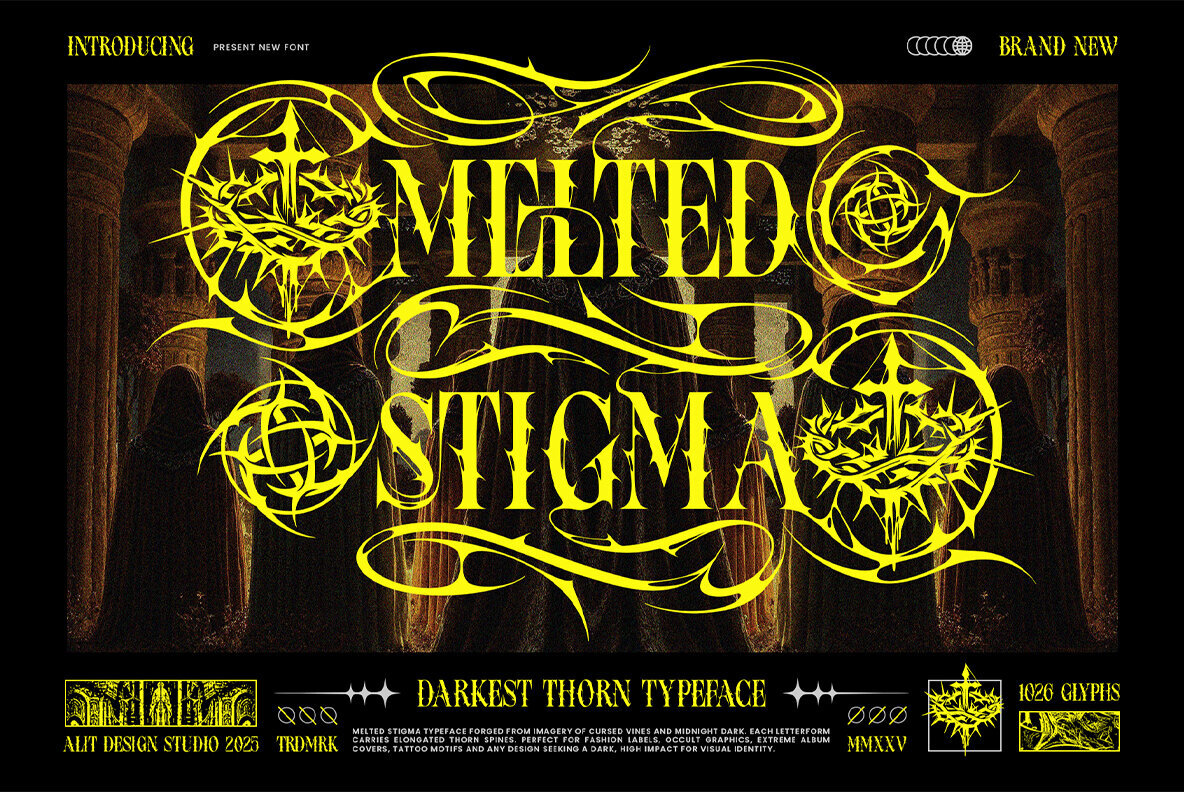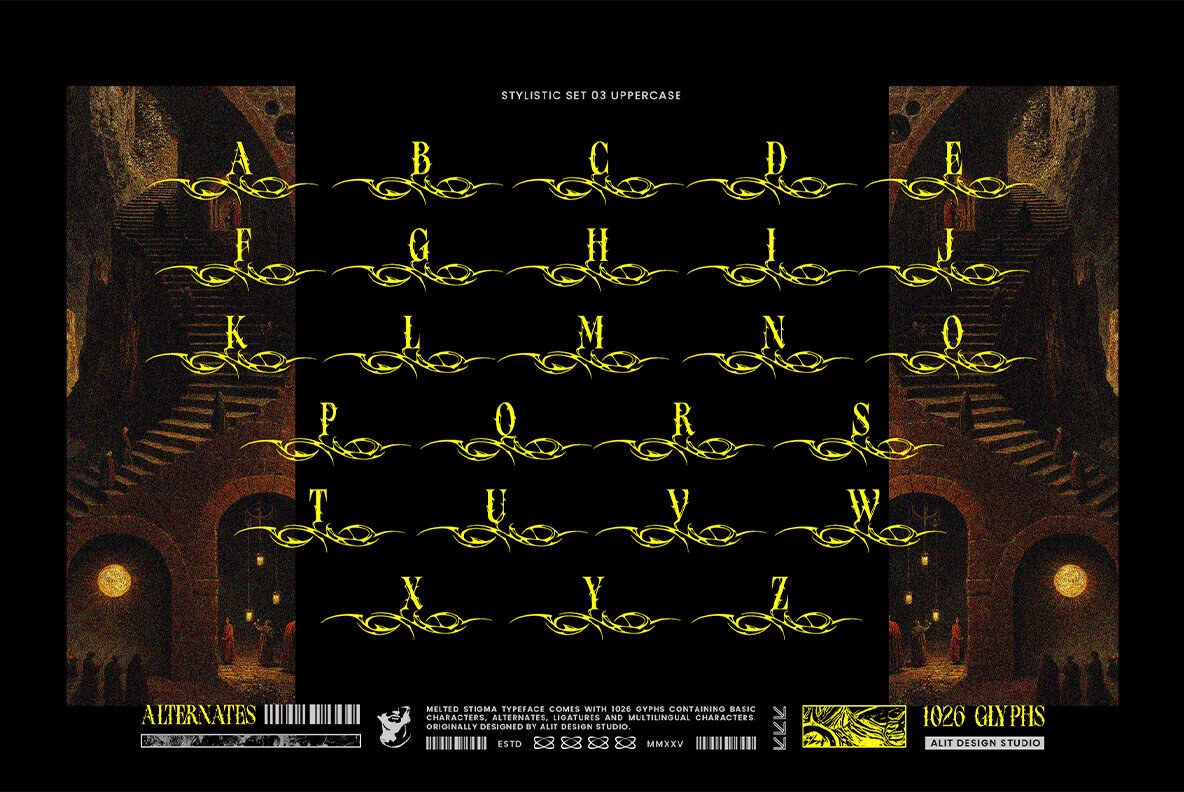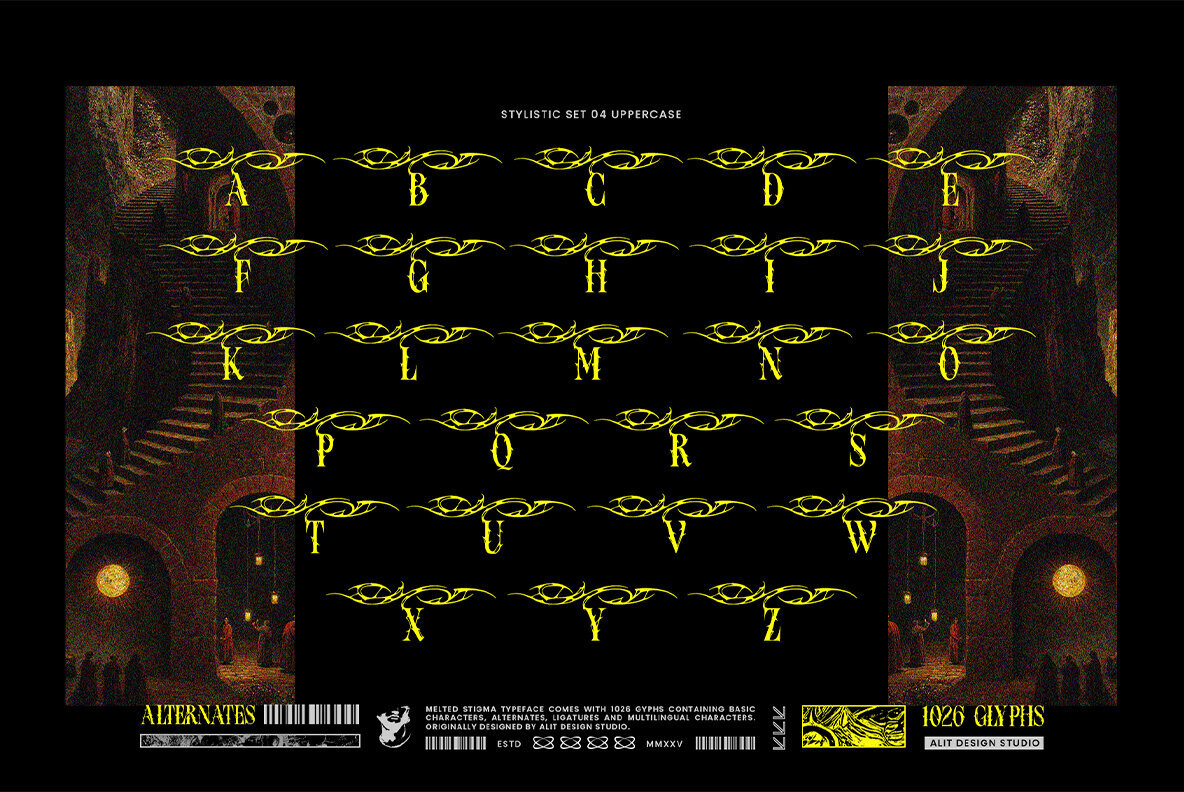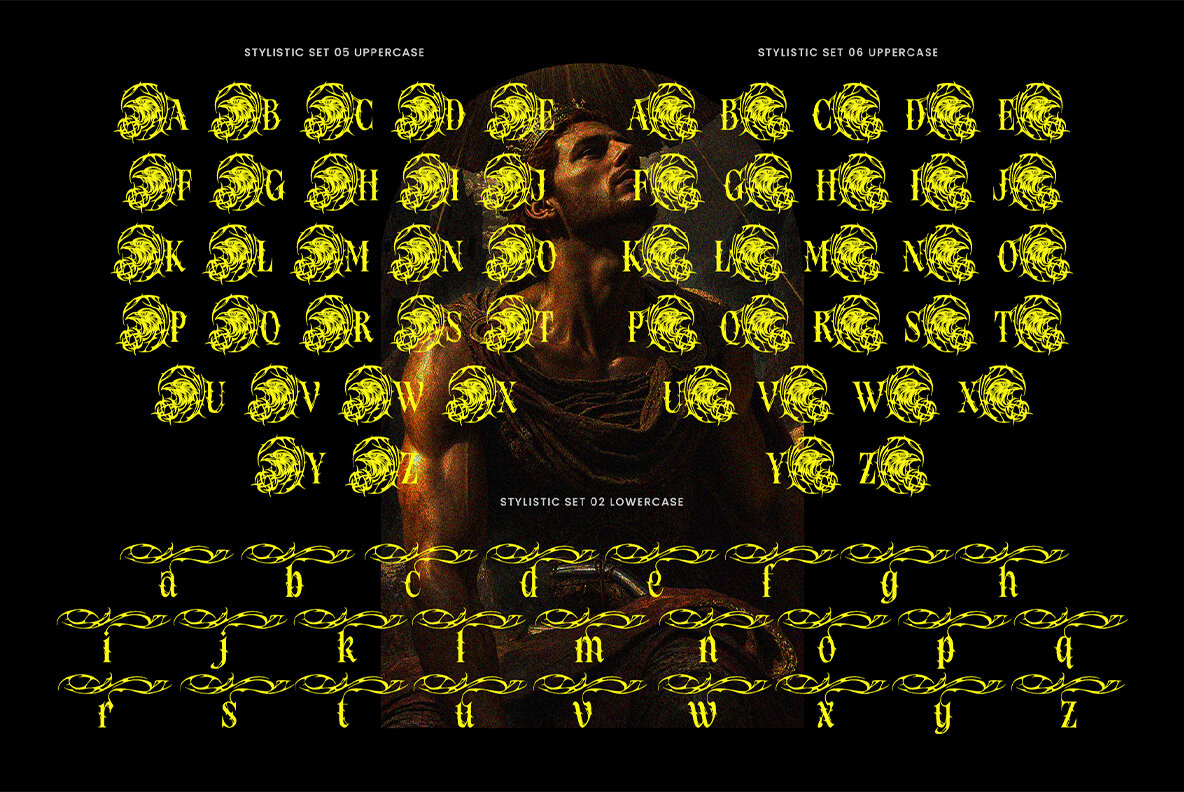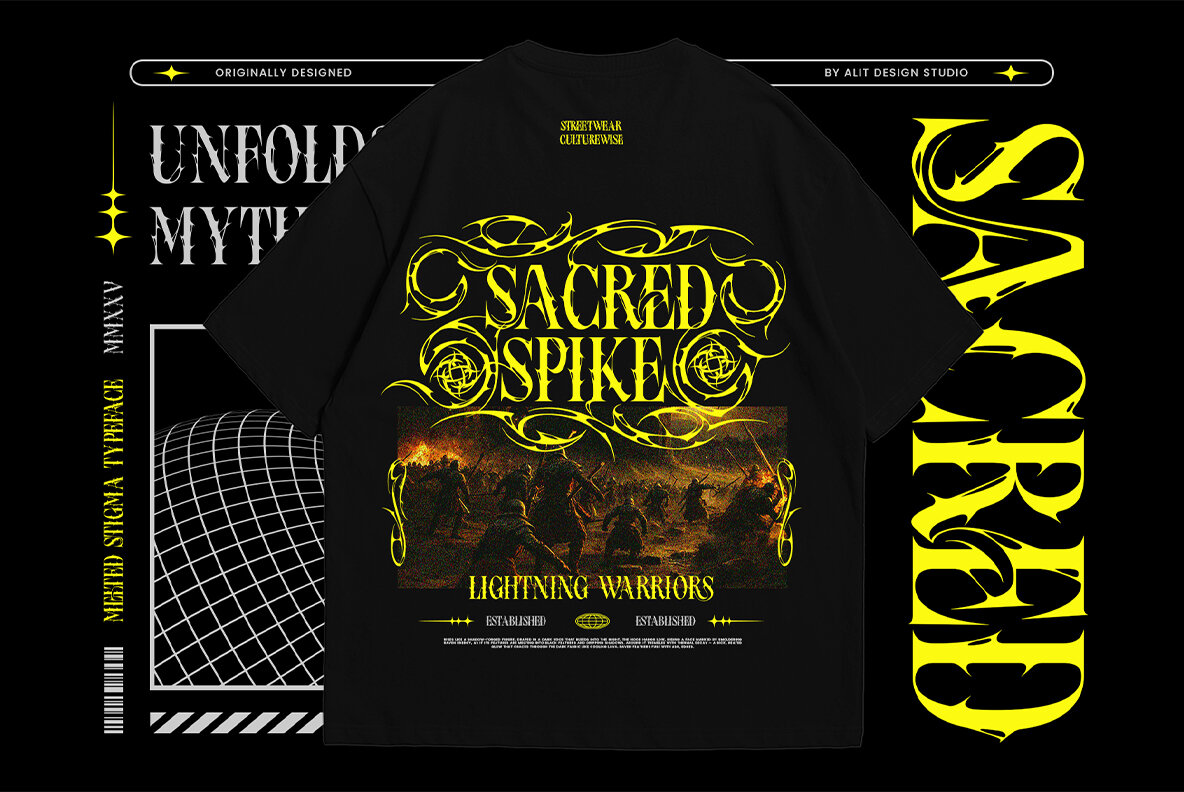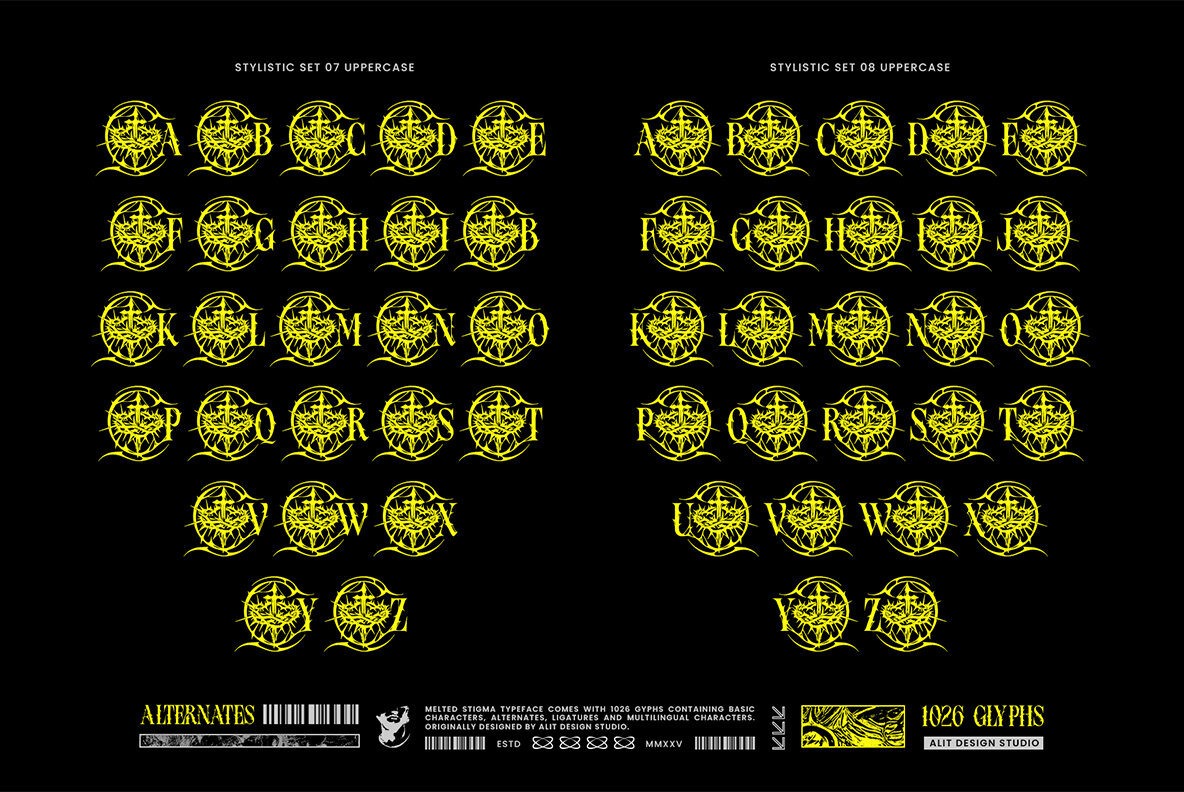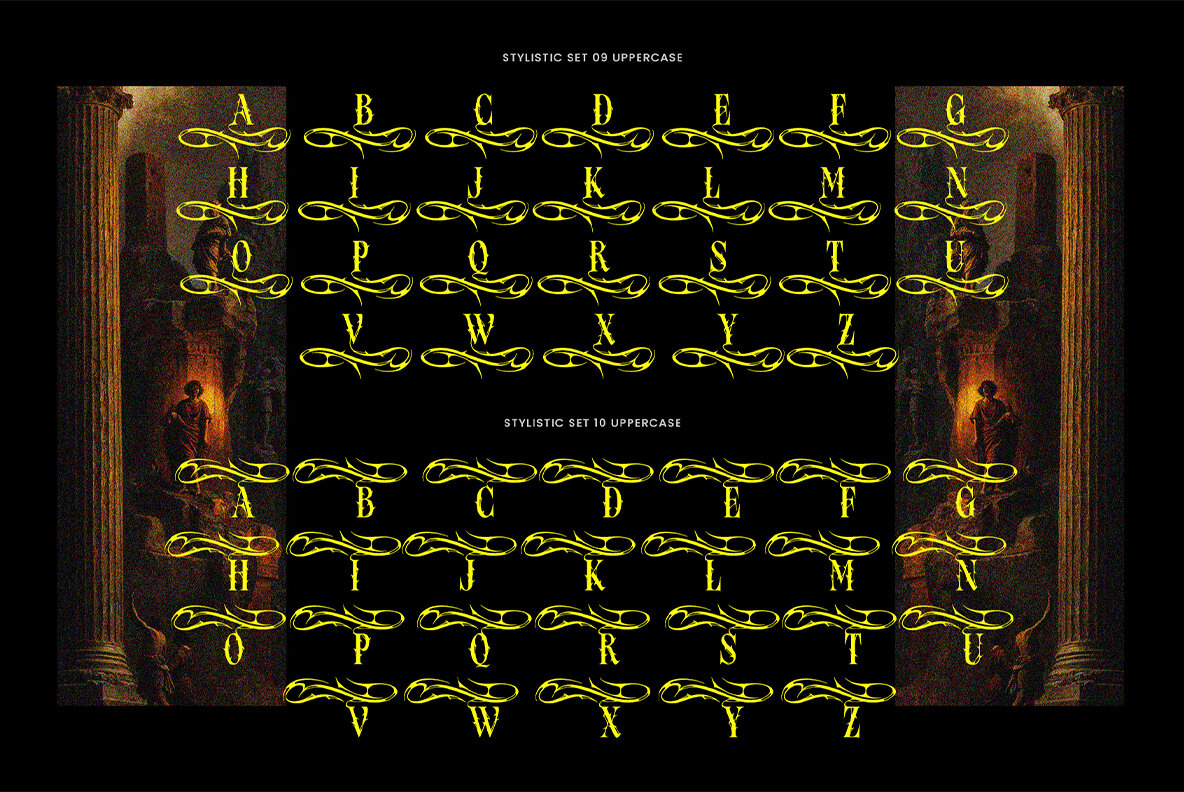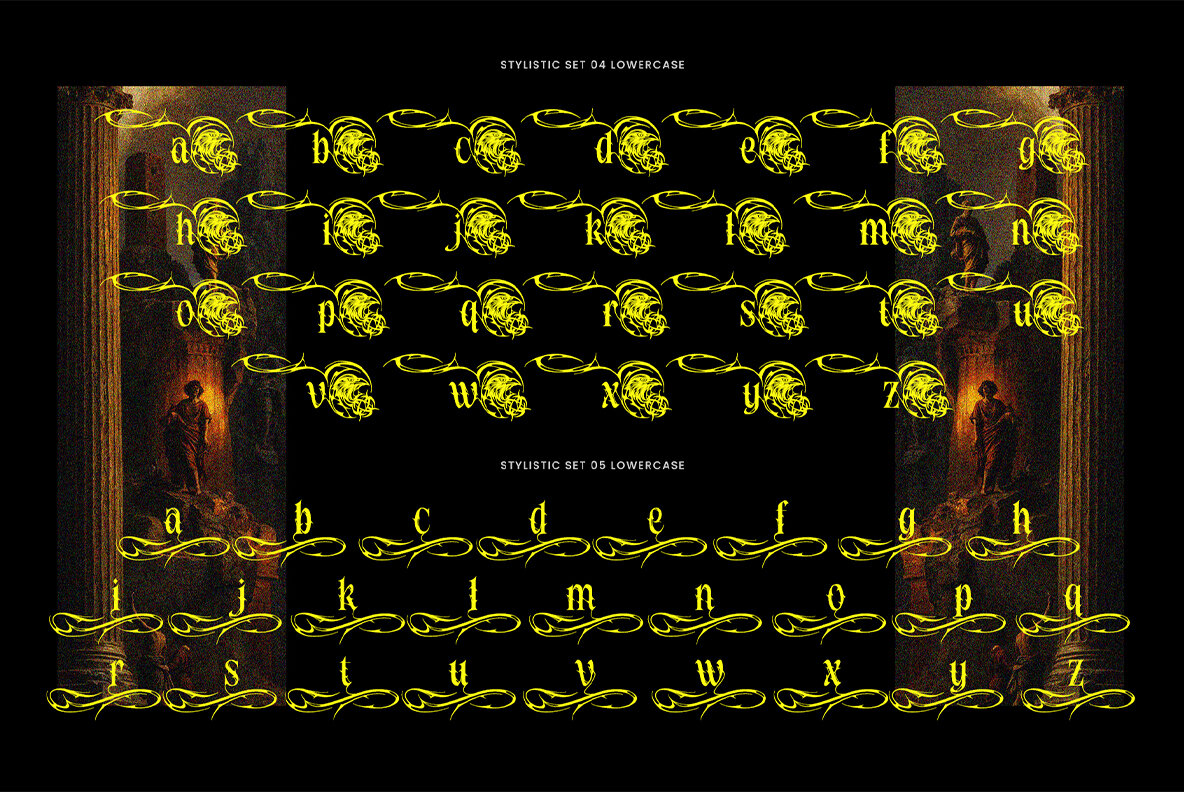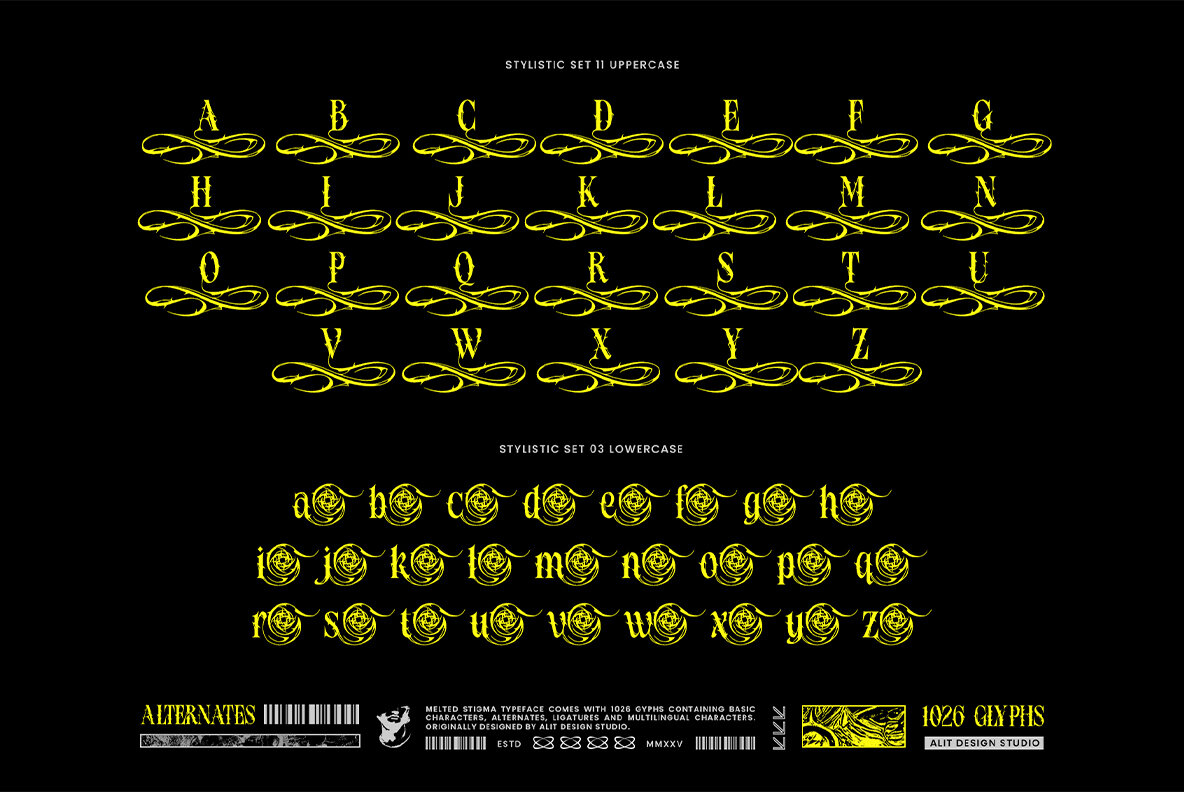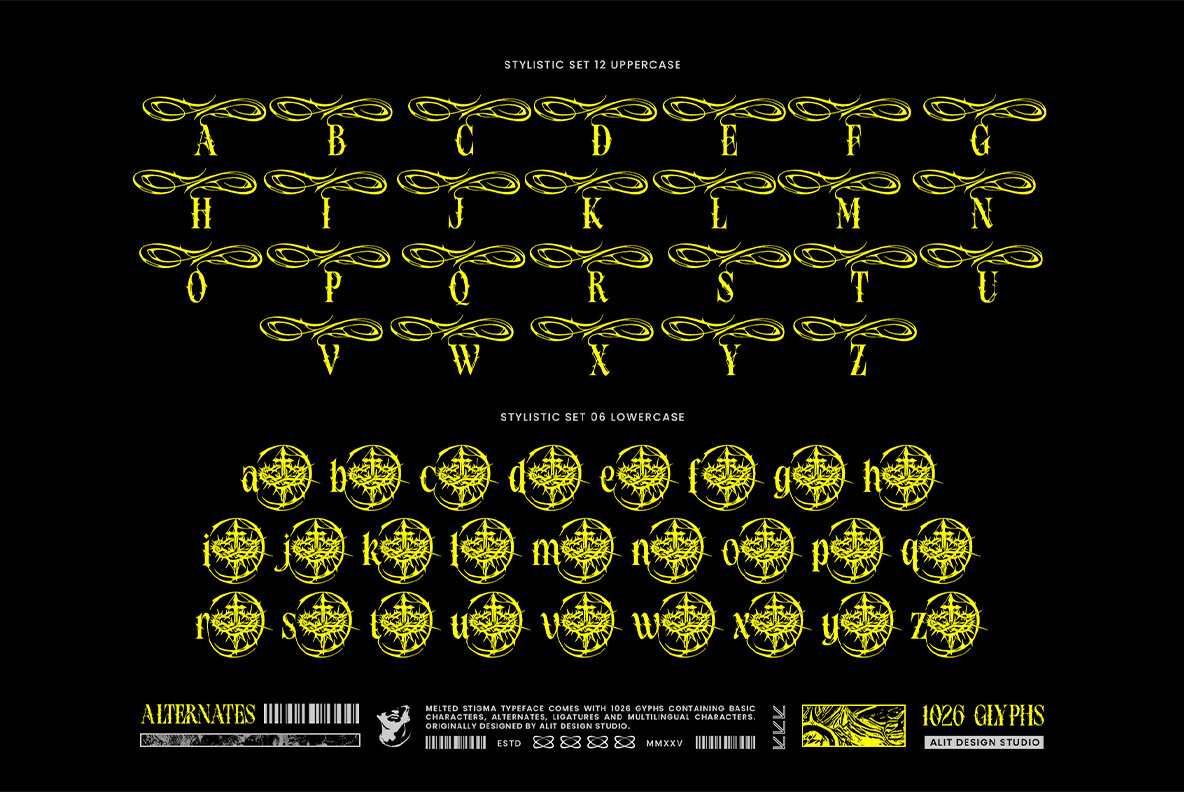
Melted Stigma Font
Melted Stigma Regular
Melted Stigma: The Darkest Thorn Typeface Forged from the imagery of cursed vines and midnight dark. Introducing Melted Stigma, a typeface that exists where classic Blackletter meets chaotic fluidity. This is not merely a font; it is a visual manifestation of "smoldering raven energy." Melted Stigma merges the historic solemnity of gothic calligraphy with a modern, aggressive twist—letters that appear to be melting, bleeding, and twisting into razor-sharp thorns. Every curve carries an instinctual violence, and every stroke is a balance between regal divinity and omen-laden power. Whether you are channeling the vibe of obscure occult graphics, extreme metal aesthetics, or futuristic tribalism, Melted Stigma delivers a visual impact that is impossible to ignore. Why Melted Stigma? Perfect For: The Product Includes: Embrace the darkness. Let your designs bleed with the "creeping sorrow" and "obsidian thorns" of Melted Stigma.